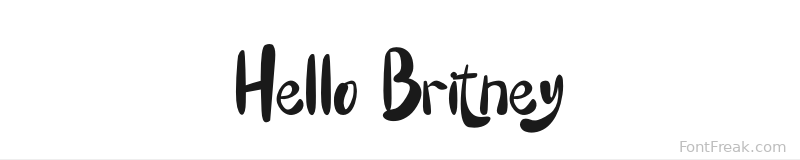
Hello Britney
The Hello Britney font by MaknaStudio is a delightful handwritten typeface that exudes charm and personality. This font features a playful and casual style, characterized by its smooth, flowing strokes and a light, whimsical touch. The stroke weight is predominantly consistent, providing a balanced appearance, while subtle variations in thickness add to its organic feel. The spacing is well-considered, allowing for readability without sacrificing the font's artistic flair, making it suitable for various design applications.
Hello Britney is an ideal choice for wedding invitations, where its charming aesthetic can convey warmth and joy. Its playful nature also makes it perfect for children’s book covers, adding a sense of fun and creativity that appeals to younger audiences. Additionally, this typeface works wonderfully for social media graphics, providing an engaging and friendly look that can enhance brand visibility. Restaurant menus can also benefit from its approachable style, making dishes feel more inviting and appealing to customers. The font's versatility allows it to cater to a wide array of projects, appealing to graphic designers, small business owners, and content creators alike.
What sets the Hello Britney font apart is its ability to blend elegance with a casual vibe, making it suitable for both formal and informal contexts. Its unique character adds a personal touch to any design, ensuring that your message stands out. With a license type of freeware, you can easily access and utilize this font for your creative projects. For those looking to enhance their typography collection, the Hello Britney font free download offers a fantastic opportunity to incorporate a distinctive handwritten style into your work.